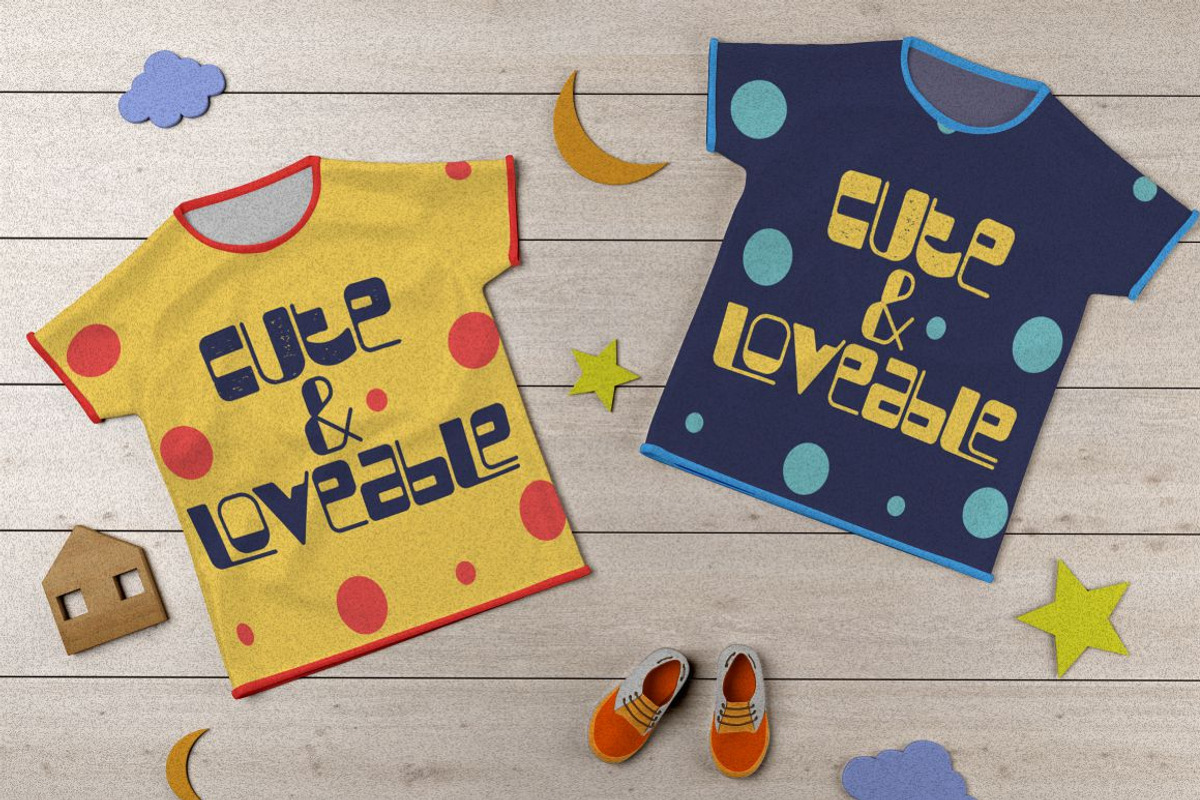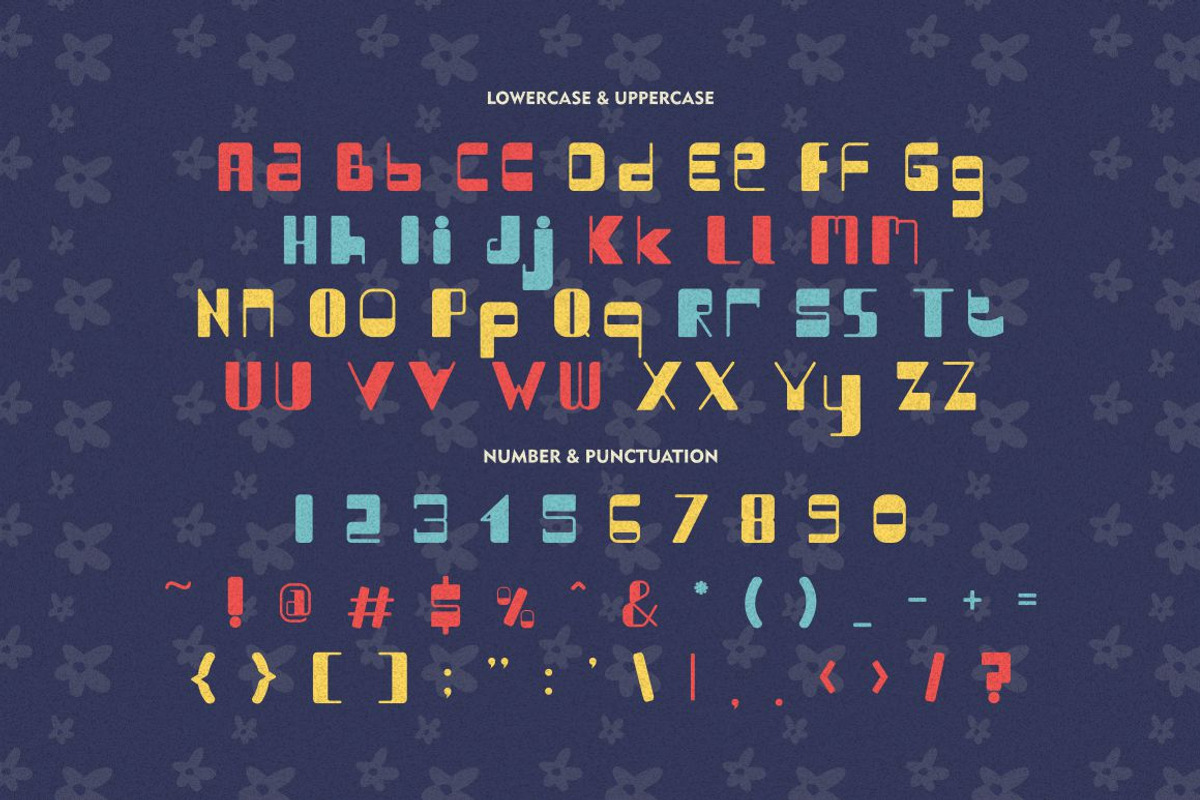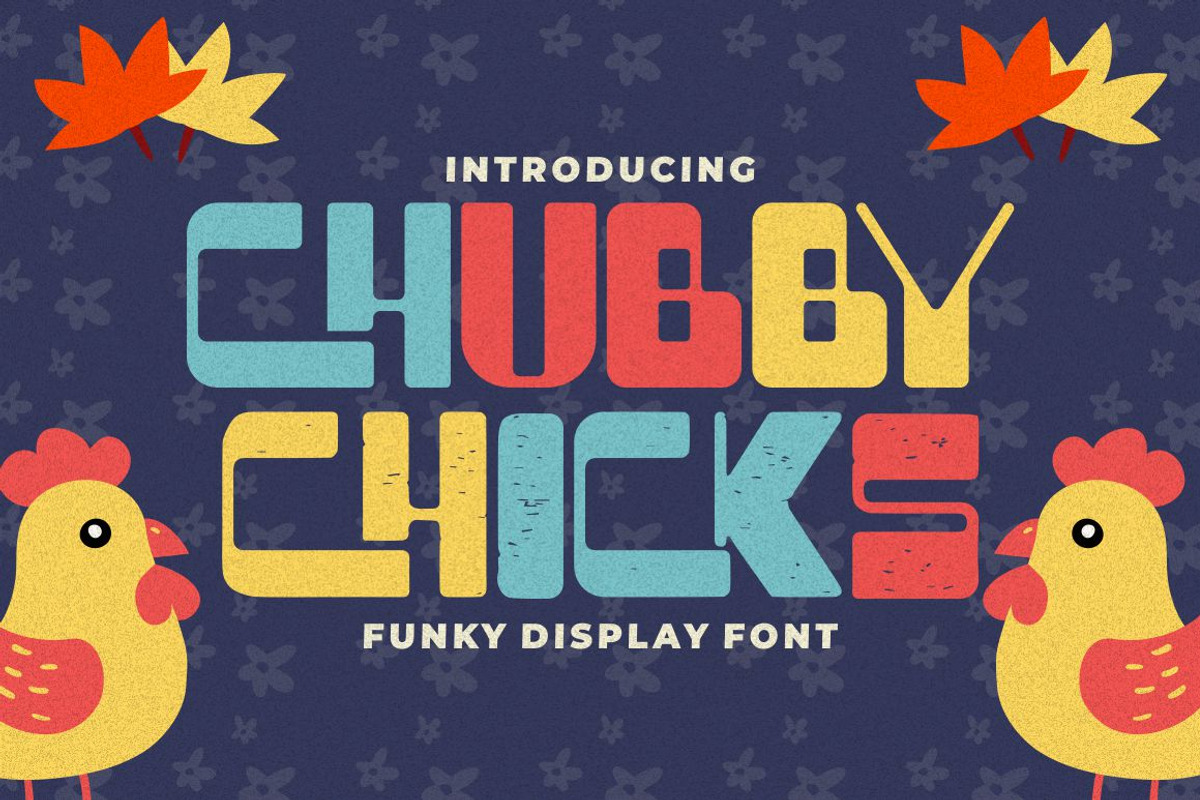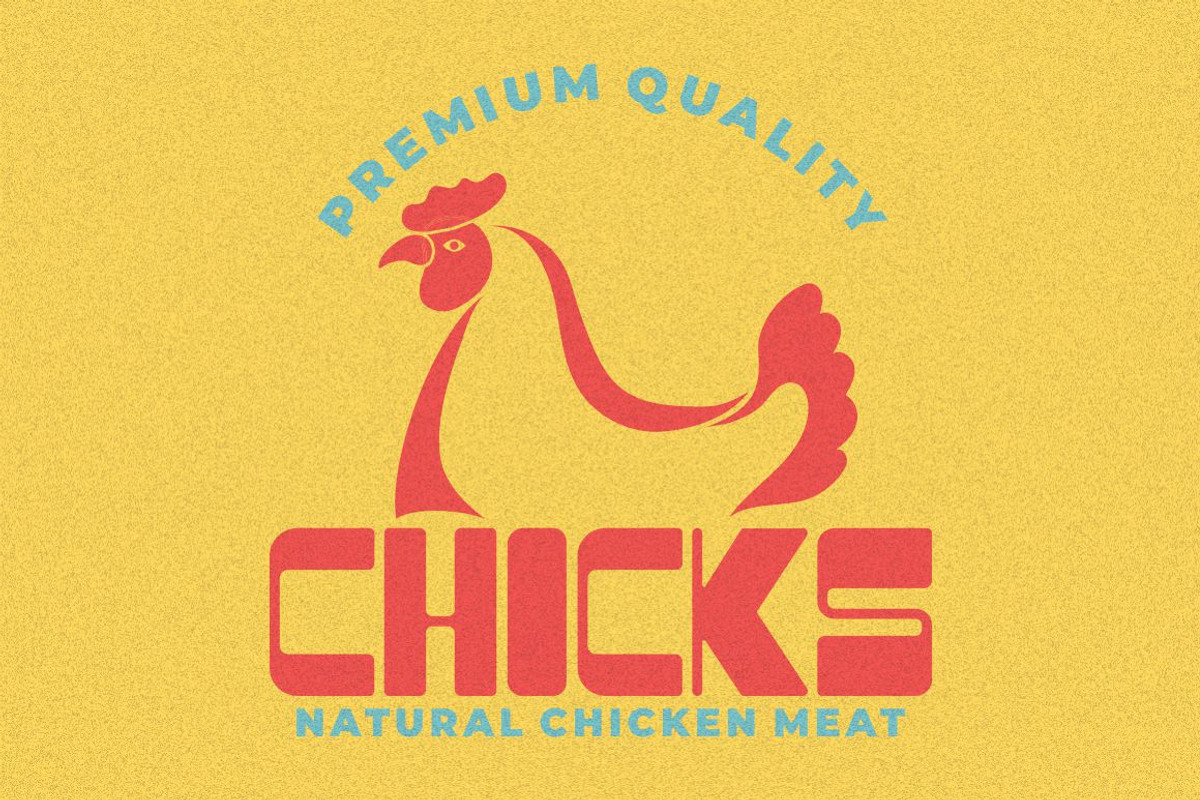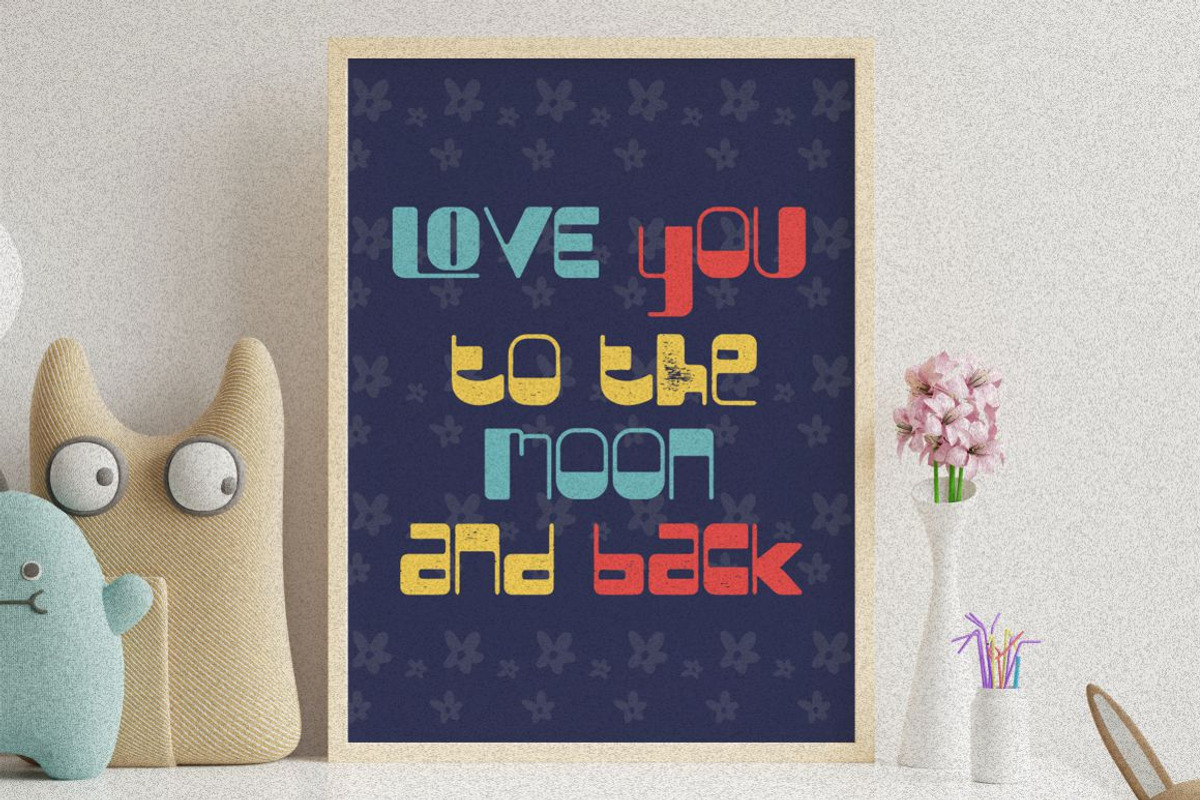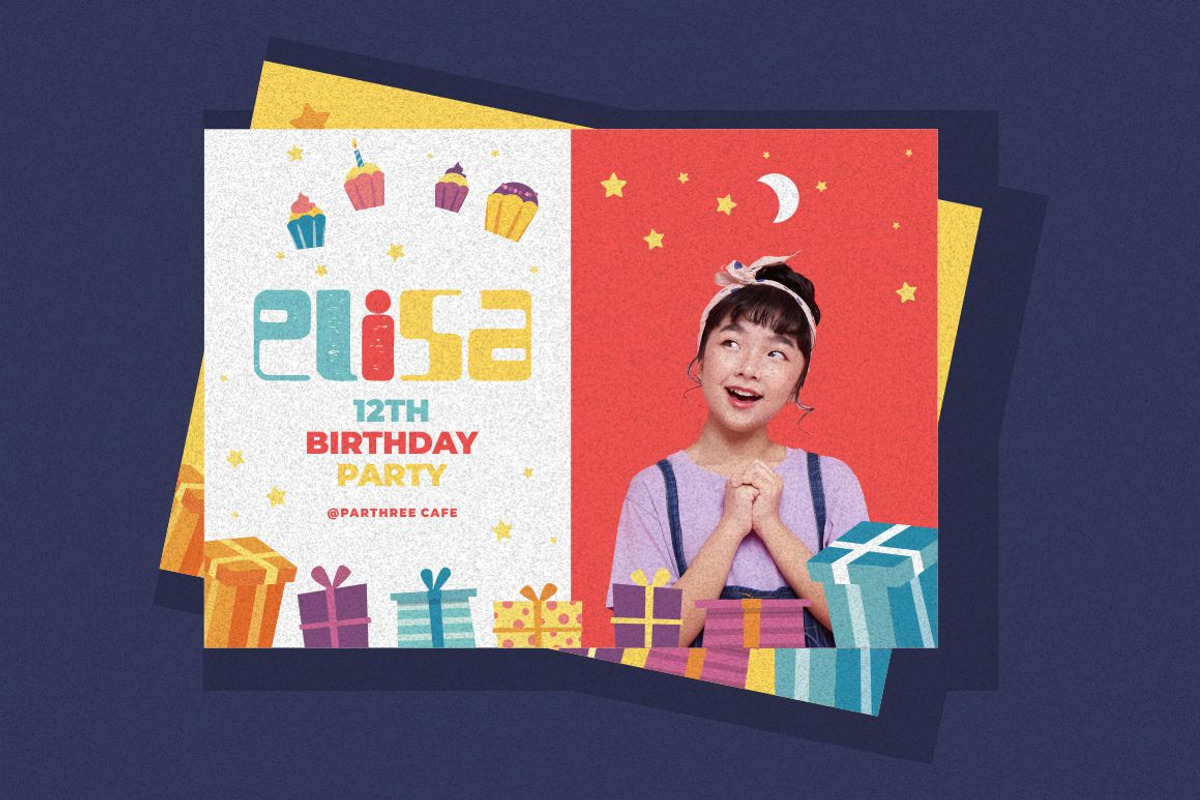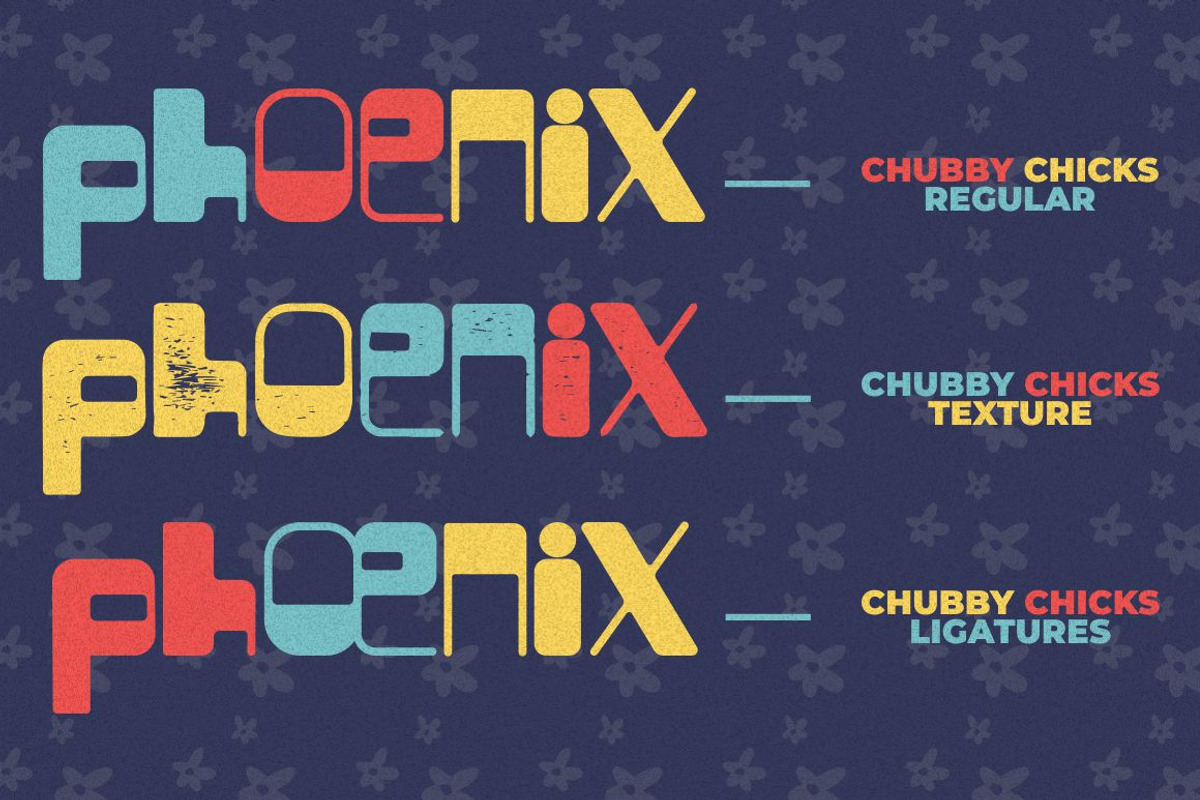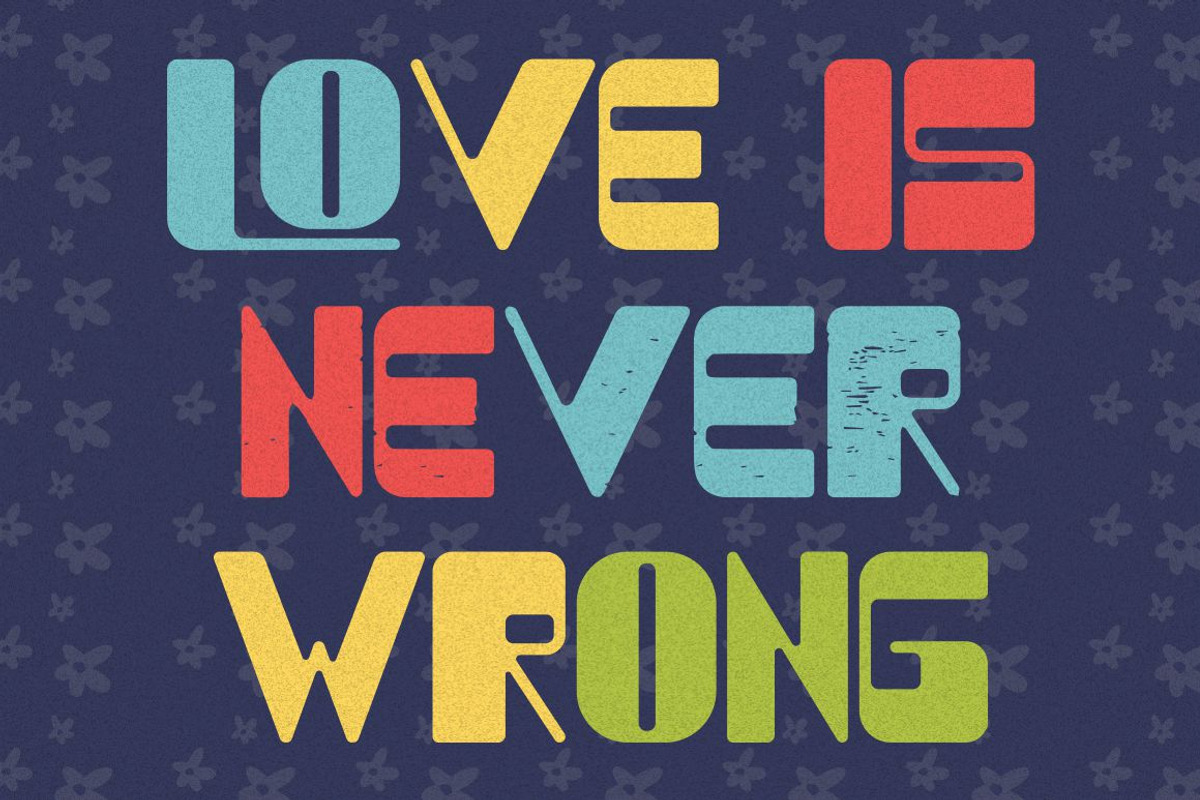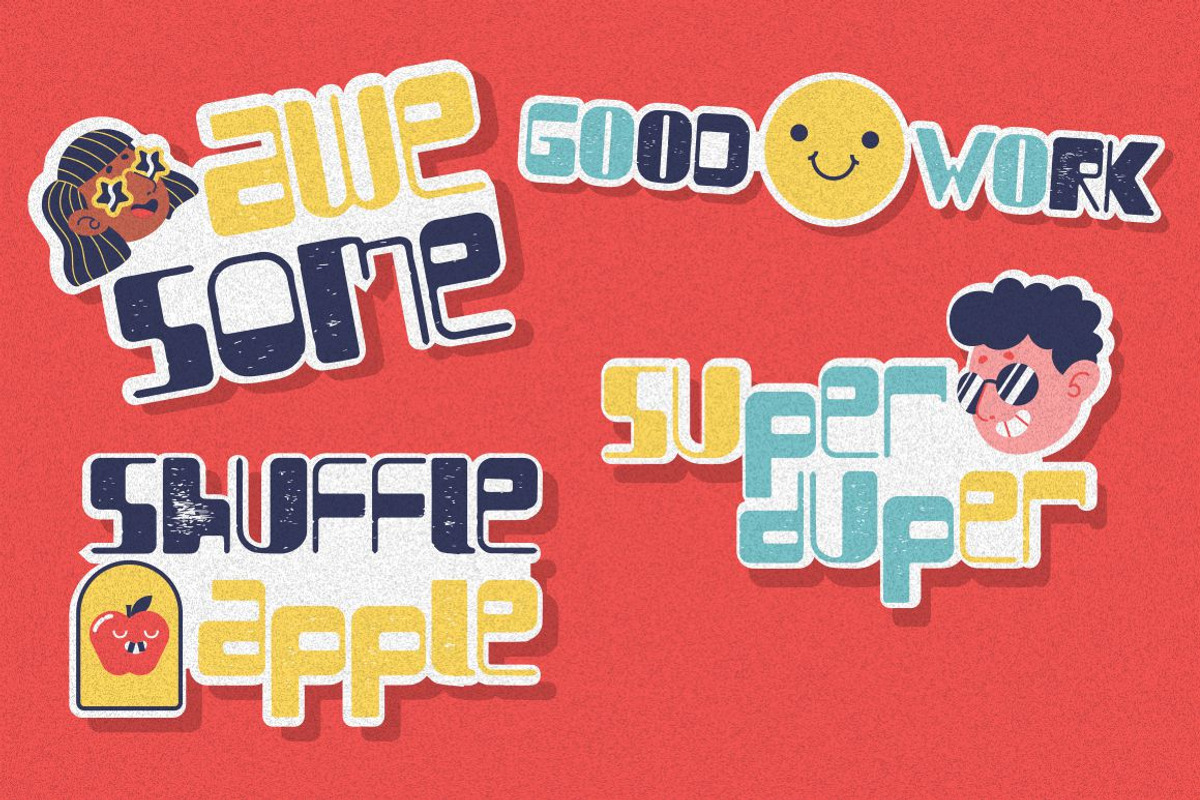
Chubby Chicks - Funky Display Font
Chubby Chicks - Funky Display Font. Chubby Chicks a bold, quirky display font with a fun and trendy cute characters.
With a childish style, it will be very suitable for your project, which is related to children. Such as story books, illustrations, comic books, t-shirts, posters, greeting cards, logos, branding, stickers, svg, crafting.